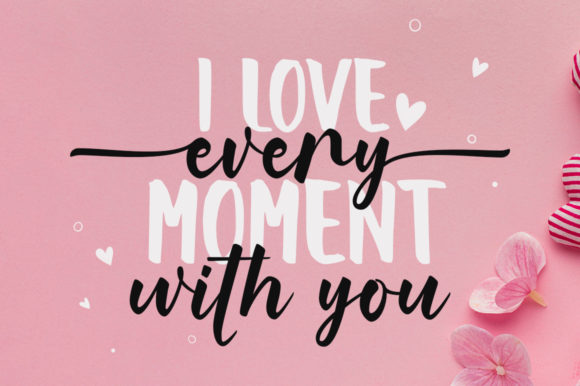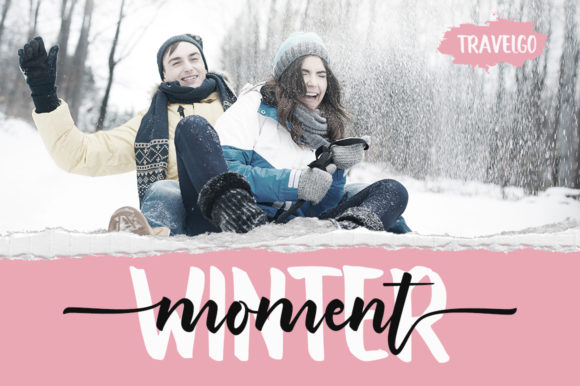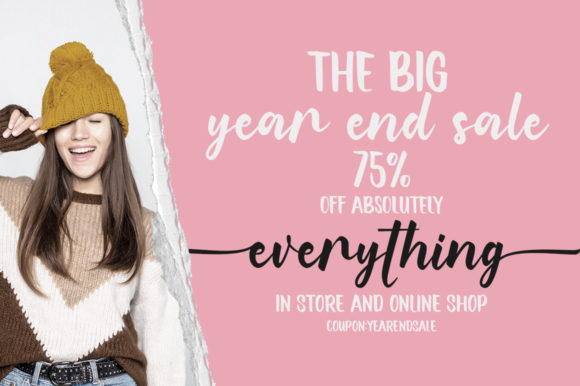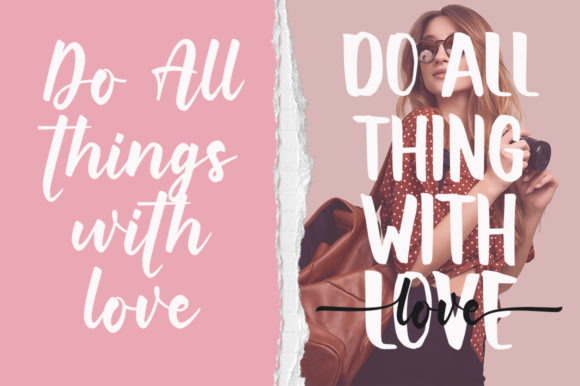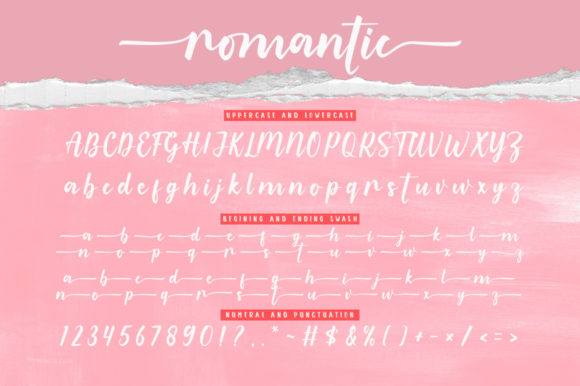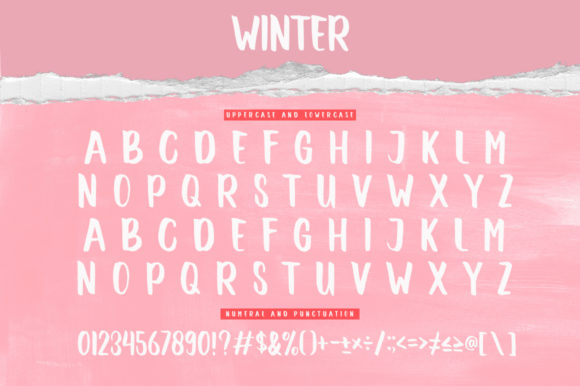
Introduction to Romantic Winter Font
As a designer, there’s nothing quite like the feeling of stumbling upon a new design resource that sparks creativity and sets your project ablaze. For me, that moment came when I discovered the enchanting Romantic Winter Font. This beautiful and natural duo font has a way of bringing any design to life, and I couldn’t wait to dive in and explore its possibilities.
With its free download and transparent background, the Romantic Winter Font is an incredibly versatile tool that can be added to any creative project, from wedding invitations to holiday greeting cards. Its high-quality design makes it a valuable asset for any designer looking to elevate their work and make a lasting impression.
- Unique and elegant design, perfect for creative projects and winter-themed designs
- High-quality font with a transparent background, allowing for seamless integration into various design elements
- Perfect for use in winter-themed designs, holiday cards, and other creative projects that require a touch of romance and elegance
- Unique characteristics: cursive script, flowing lines, and decorative flourishes, making it a standout design element in any project
Honest Review: Romantic Winter Font
I recently had the opportunity to work with the Romantic Winter Font, and I must say it’s a beautiful addition to any creative project. This font is perfect for those looking to add a touch of elegance and sophistication to their designs.
What works well: ✨ The Romantic Winter Font has a transparent background, making it easy to layer over other design elements. The high-quality design and crisp lines give it a professional look and feel. Additionally, it’s available for free download, which is a huge plus for designers on a budget.
- High-quality design and crisp lines
However, there are a few limitations: ⚠️ The font may not be suitable for all types of projects, particularly those that require bold or dramatic typography. Additionally, the font’s elegance may come across as overly formal in certain contexts.
Overall, I’m impressed with the Romantic Winter Font. It’s a great design resource for those looking to add a touch of sophistication to their creative projects. With its high-quality design and transparent background, it’s a versatile font that can be used in a variety of contexts.
The Romantic Winter Font is a beautiful and elegant design resource perfect for any creative project. With its high-quality design and transparent background, you can easily incorporate it into your next project.
Getting the Most Out of the Romantic Winter Font
To get the most out of the Romantic Winter Font, try combining it with other design elements, such as images and graphics, to create a unique and eye-catching design. You can also experiment with different font sizes, colors, and styles to add depth and interest to your project.
The Romantic Winter Font is perfect for any project that requires a touch of elegance and sophistication, such as:
- Wedding invitations and decorations
- Christmas and holiday cards
- Special occasion graphics and designs